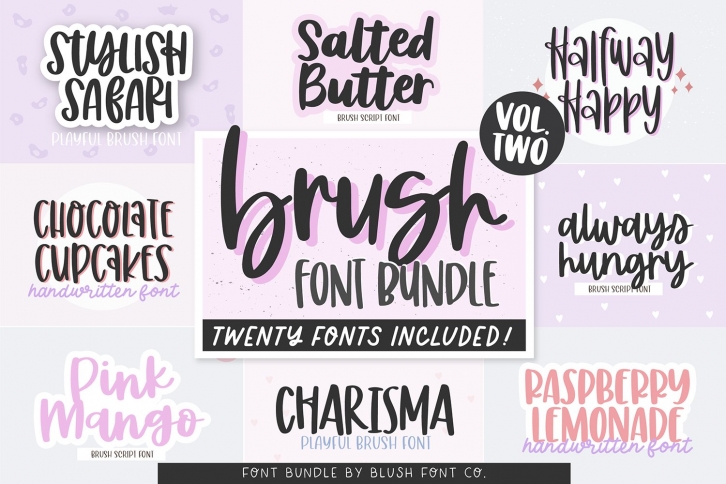
BRUSH BUNDLE VOL. 2 by Blush Co. is a beautiful font that was designed by Blush Font Co. It's a great choice for designers and creatives who need such a font. It was released on January 24, 2022 and the file size is 7.43 MB. BRUSH BUNDLE VOL. 2 by Blush Co. may give a more youthful, expressive and casual look to your project. It is a very beautiful, refined, elegant, and high-quality font.